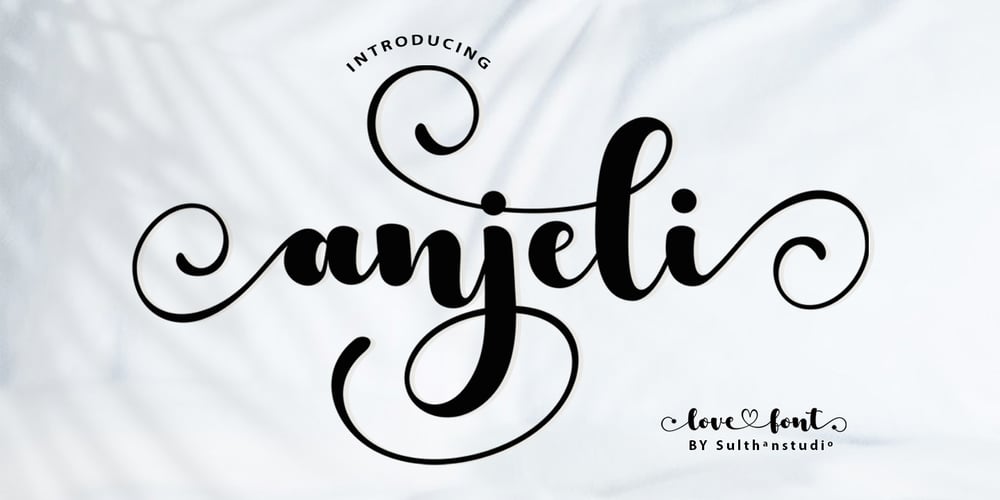
Anjeli Font Family was designed by Nasrullah and published by Sulthan Studio. Anjeli contains 1 styles and family package options. Anjeli – a fresh, cute,handwritten font with a cute heart to connect with as well as a large selection of swashes. Great for greeting cards, branding materials, business cards, quotes, posters and more!Anjeli – includes many alternative characters. Coded with Unicode PUA, which allows full access to all additional characters without having any special design software. Mac users can use Font Book. Windows users can use the Character Map to view and copy any of the additional characters to paste into your favorite text editor. For people who have opentype-capable software: Alternatives can be accessed by activating the “Alternative Styles” and “Ligature” buttons on Photoshop’s Character panel, or via any software with a glyph panel, eg. Adobe Illustrator, Photoshop CC, Inkscape.